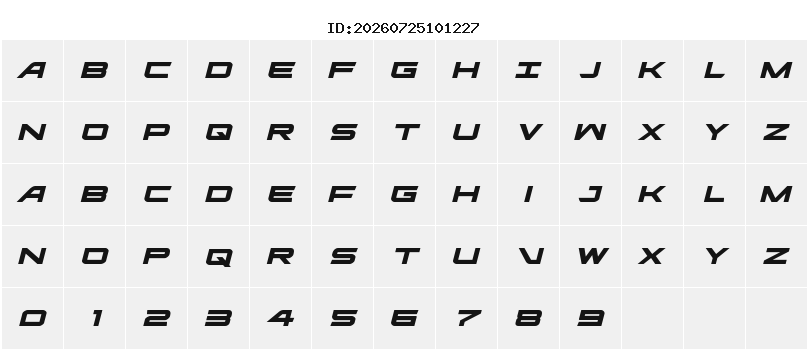
Ghost Clan Expanded Italic Preview
• Font Name: Ghost Clan Expanded Italic
• Font Style: Expanded Italic
• Full Font Name: Ghost Clan Expanded Italic
About Ghost Clan Expanded Italic.ttf
Ghost Clan Expanded Italic.ttf is a modern, elegant sans-serif font designed for ultimate readability and visual harmony. Perfect for branding, headlines, web design, and print materials.